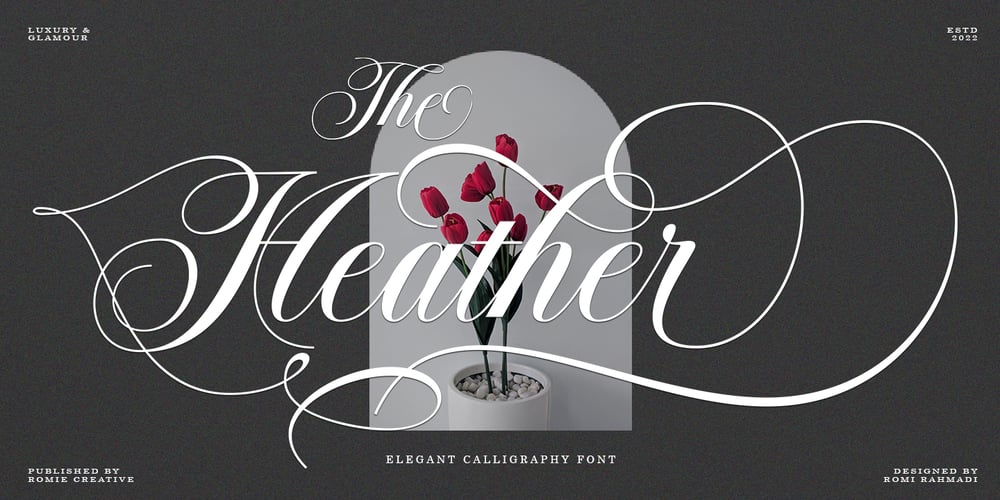
The Heather
The Heather font
The Heather Font Family was designed by Romi Rahmadi and published by Romie Creative. The Heather contains 1 styles and family package options. The Heather Script is a formal calligraphy design, including Regular. This font is casual and pretty with a stroke. Can be used for various purposes. such as logos, product packaging, wedding invitations, branding, headlines, signage, labels, signatures, book covers, posters, quotes and much more.Heather Script featuring OpenType style alternatives, ligatures and International support for most Western Languages ​​is included. To enable the OpenType Stylistic alternative, you need a program that supports OpenType features such as Adobe Illustrator CS, Adobe Indesign & CorelDraw X6-X7, Microsoft Word 2010 or a later version.How to access all alternative characters using Adobe Illustrator:*https://www.youtube.com/watch?v=XzwjMkbB-wQHeather Script is coded with PUA Unicode, which allows full access to all additional characters without having to design special software. Mac users can use Font Book , and Windows users can use Character Map to view and copy any additional characters to paste into your favorite text editor/application. How to access all alternative characters, using the Windows Character Map with Photoshop:*https://www.youtube.com/watch?v=Go9vacoYmBw